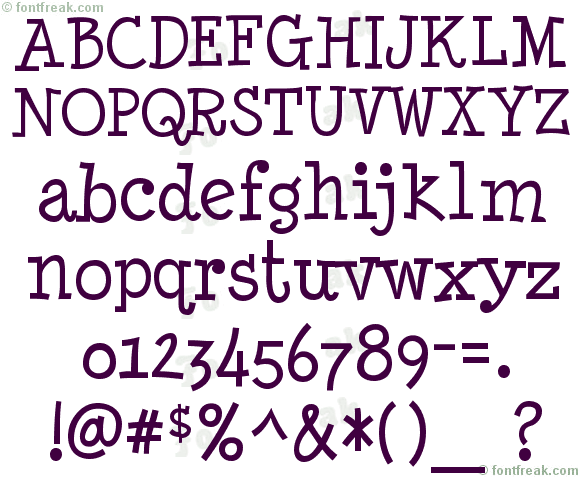
Minya Nouvelle
Minya Nouvelle Italic
Minya Nouvelle Bold
Minya Nouvelle Bold Italic
The Minya Nouvelle font, designed by Ray Larabie, is a distinctive serif typeface that elegantly combines traditional aesthetics with modern flair. Released in 2000 and updated in 2004, this freeware font features a balanced stroke weight and moderate contrast, giving it a sophisticated yet approachable appearance. The characters are well-spaced, ensuring legibility while adding a touch of charm. Its unique decorative elements, such as subtle curves and classic serifs, contribute to its timeless appeal.
Minya Nouvelle is versatile, making it an excellent choice for a variety of applications. It shines in wedding invitations, where its elegant style can elevate the overall design and convey a sense of romance. Additionally, it works beautifully for movie posters, allowing titles to stand out with a classic yet contemporary look. Restaurant menus can also benefit from this font, as it adds a touch of refinement that complements fine dining experiences. Furthermore, graphic designers and content creators can utilize Minya Nouvelle for branding projects and marketing materials, ensuring their messages resonate with audiences.
What sets Minya Nouvelle apart is its ability to blend classic serif characteristics with a modern sensibility, making it suitable for both formal and casual contexts. Its unique visual style and versatility ensure that it remains a valuable asset for any design project.